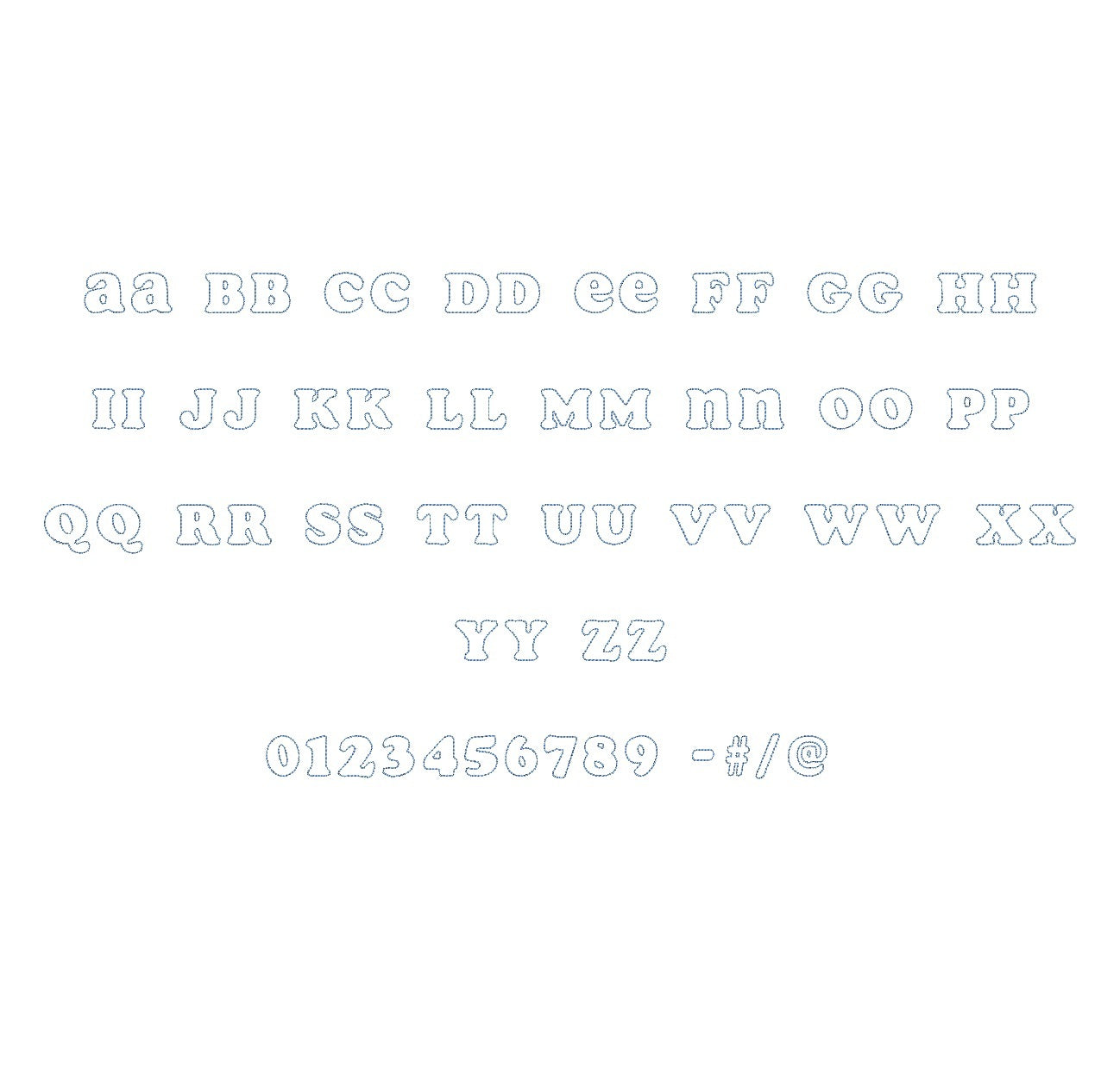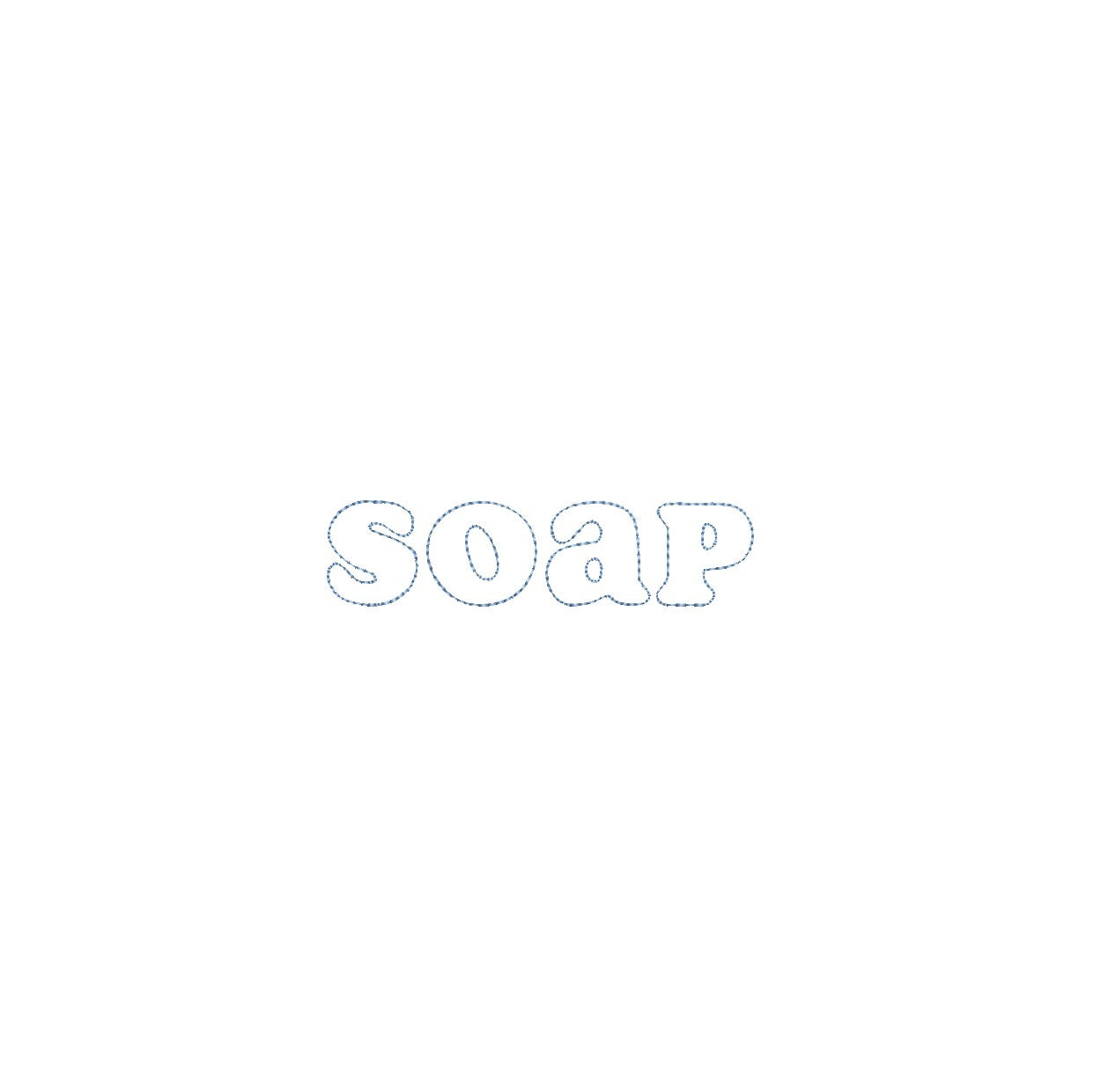
Elevate your embroidery projects with the Soap Bean Outline ESA font, compatible with Wilcom Studio e4.5.6 and Hatch 3 versions and up. This font effortlessly combines fluid elegance and precision, infusing your designs with a unique aesthetic perfect for graceful monograms and embellishments. Experience seamless compatibility for exceptional results and unleash a new level of stitching finesse. Transform your creations into embroidery masterpieces that radiate sophistication and creativity. Elevate your projects with the Soap Bean Outline ESA font and make your embroidery truly refined and captivating.